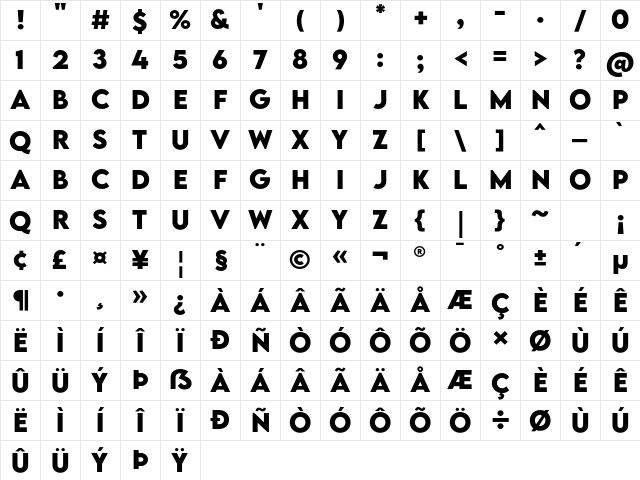
LEMON MILK Bold
Foundry: MARSNEV
Designer: Muhammad Ariq Syauqi
Design Context for LEMON MILK
LEMON MILK is a composed and adaptable typeface that performs quietly and consistently across a wide range of design contexts. Its bold stroke weight gives it real presence on the page.